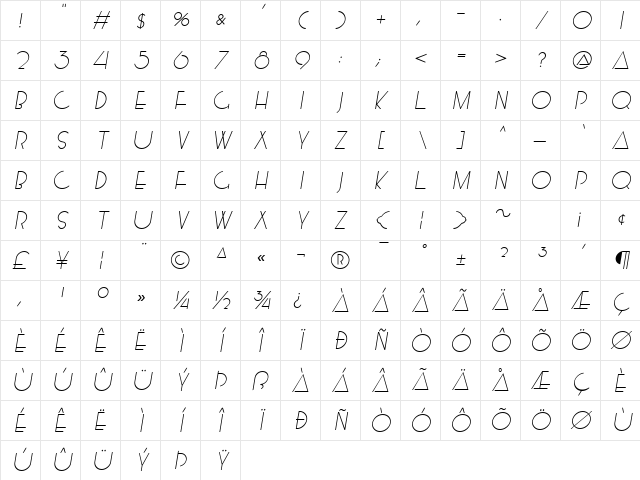
MossmanLight Oblique
Design Context for MossmanLight
MossmanLight is a composed and adaptable typeface that performs quietly and consistently across a wide range of design contexts. The slanted form adds forward momentum and visual energy. Its slender proportions lend an understated elegance to any composition.